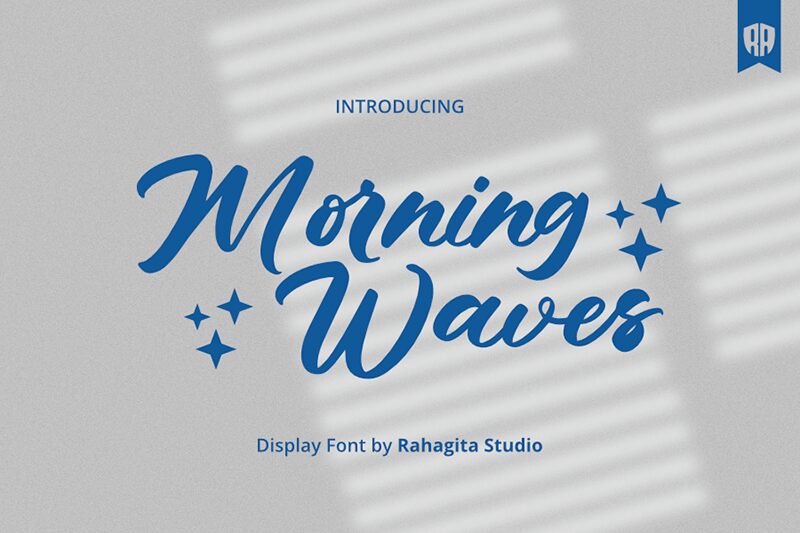
Morning Waves font
Immerse your designs in the refreshing essence of the early morning with Morning Waves Font. Inspired by the gentle breeze preceding rainfall, this font effortlessly captures a cute and bold aesthetic. Made for versatility, it serves as the perfect choice for logos, packaging, brochures, cover titles, fashion statements, and enchanting wedding invitations. Elevate your design with the lively and beautiful touch of Morning Waves, infusing every project with a charming vibrancy that resonates with the tranquility of a misty morning.